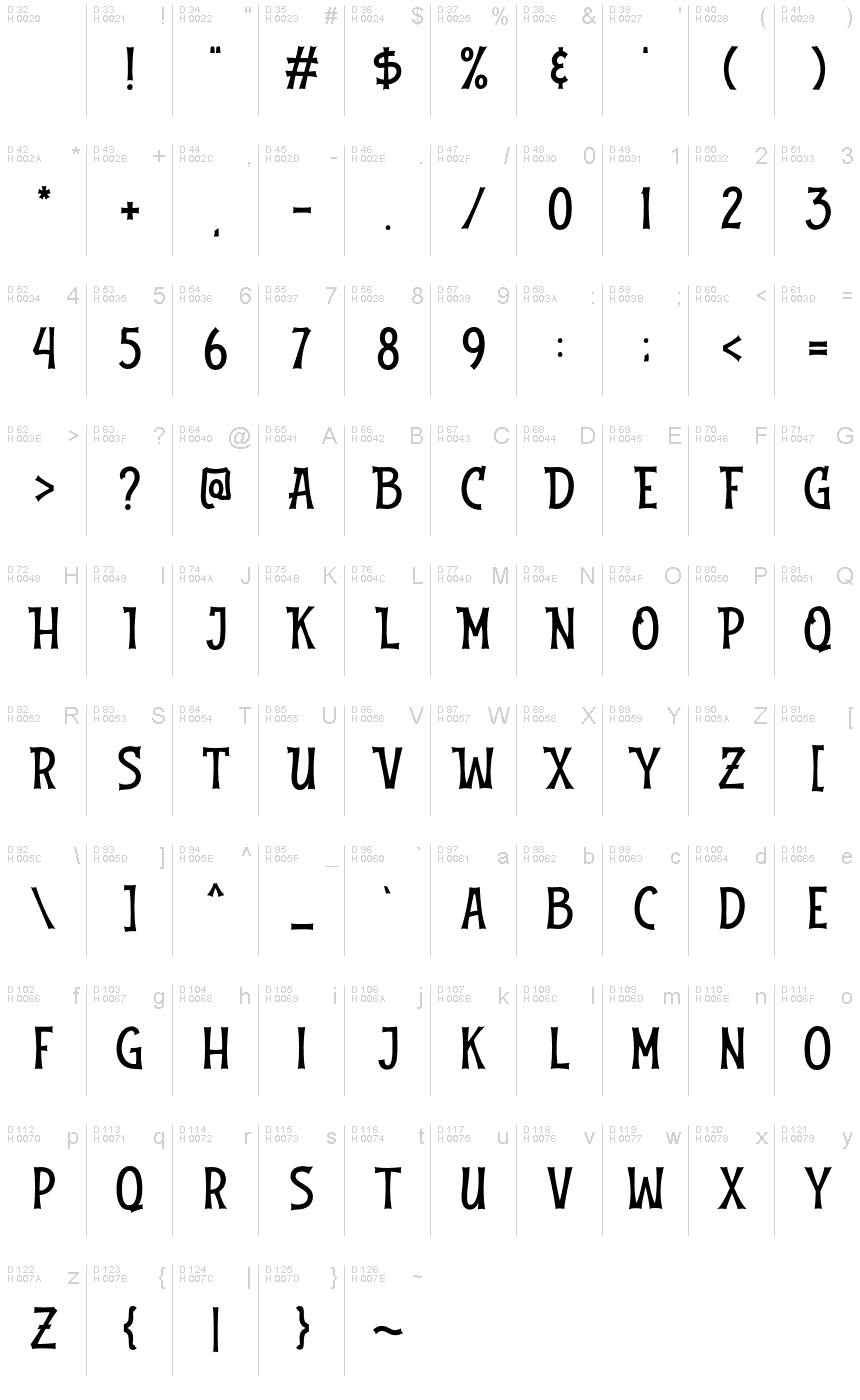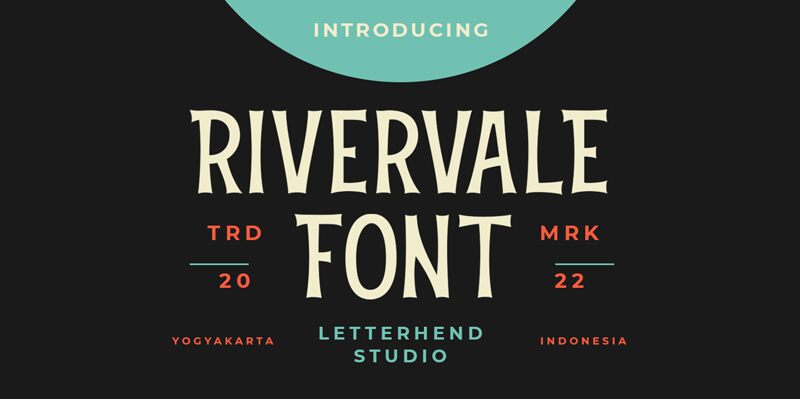
RivervaleRegularDemo
Rivervale, a captivating display font crafted by Letterhend Studio, is a perfect choice for projects that demand striking visuals. With its condensed form, this font exudes an air of sophistication and elegance. Its sharp lines and distinctive curves make it ideal for magazine covers, logo designs, and fashion branding. Rivervale's versatility shines through in advertisements, packaging designs, and poster layouts. Whether you're creating a modern website or a trendy social media campaign, this semi-bold font will effortlessly convey your message with style and finesse. Elevate your projects with the unique charm of Rivervale!